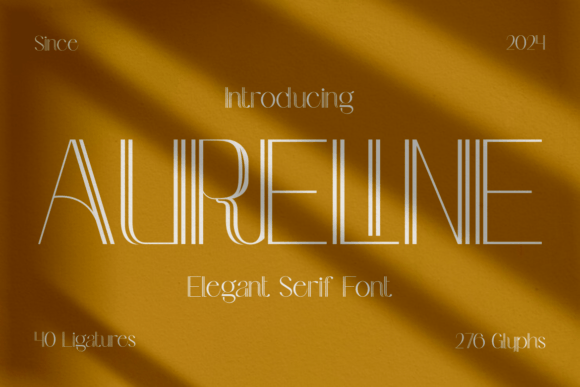
Introducing Aureline – Elegant Serif Font
In the world of typography, a well-crafted font can elevate a design from ordinary to extraordinary. For designers and crafters seeking a touch of luxury and refinement, Aureline – Elegant Serif Font is an exceptional choice. This sophisticated and modern typeface is designed to bring a sense of elegance and poise to any project, making it perfect for high-end branding, editorial designs, and more.
A Unique Double-Line Serif Style
Aureline’s distinctive feature is its unique double-line serif style, which masterfully balances minimalistic elegance with intricate details. This refined approach to serif design results in a clean and elongated aesthetic, characterized by subtle curves that create a sense of balance and harmony. The outcome is a font that exudes sophistication and refinement, making it ideal for projects that demand a high level of elegance.
Refined Ligatures and Extensive Glyph Set
One of the standout features of Aureline is its refined ligatures and extensive glyph set, comprising 276 glyphs. This vast array of characters provides designers with the creative versatility to experiment with various design concepts, ensuring a seamless fit for any project. Whether you’re working on a luxury brand identity, a high-end editorial piece, or a bespoke craft project, Aureline’s glyphs offer the flexibility to bring your vision to life.
Perfect for High-End Branding and Editorial Designs
Aureline’s elegant and refined design makes it an excellent choice for high-end branding and editorial projects. Its sophisticated aesthetic is well-suited for luxury brands looking to establish a premium identity, while its versatility and range of glyphs make it perfect for editorial designs that require a touch of elegance. From high-end fashion magazines to bespoke brand identities, Aureline is the perfect font to elevate your design to the next level.
Key Features of Aureline
- Unique Double-Line Serif Style: Combining minimalistic elegance with intricate details for a refined aesthetic.
- Clean and Elongated Characters: Subtle curves create a sense of balance and harmony, perfect for high-end designs.
- Refined Ligatures: Providing creative versatility and a seamless fit for any design concept.
- 276 Glyphs: An extensive range of characters for maximum design flexibility.
- Perfect for: High-end branding, editorial designs, luxury packaging, and bespoke craft projects.
Why Choose Aureline?
For designers and crafters seeking a font that embodies luxury and refinement, Aureline is an exceptional choice. Its unique double-line serif style, refined ligatures, and extensive glyph set make it the perfect tool for creating high-end designs that demand attention to detail. With Aureline, you can:
- Elevate your brand identity with a sophisticated and modern typeface.
- Create editorial designs that exude elegance and refinement.
- Stand out in a crowded market with a distinctive and luxurious aesthetic.
Aureline – Elegant Serif Font is a game-changer for designers and crafters seeking to bring a touch of luxury and refinement to their projects. Its unique double-line serif style, refined ligatures, and extensive glyph set make it the perfect choice for high-end branding, editorial designs, and bespoke craft projects. With Aureline, you can create designs that exude sophistication, elegance, and refinement, setting you apart from the competition.